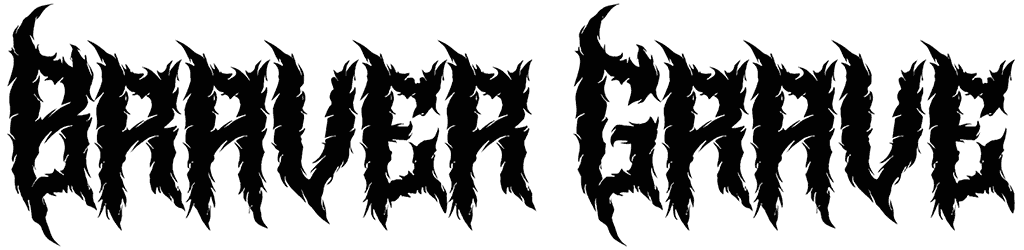
Braver Grave Font
Just look how great Braver Grave is at generating a sense of fear in the audience as an evil font with lots of spikes coming out of it. So don’t panic if the output feels kind of cursed, because that’s just how Braver Grave works.
For any of you who don’t need any lowercase letters or numerals in their typography, this death metal font presents lots of opportunities to design Halloween posters, satanic designs, and anything in that dark theme.